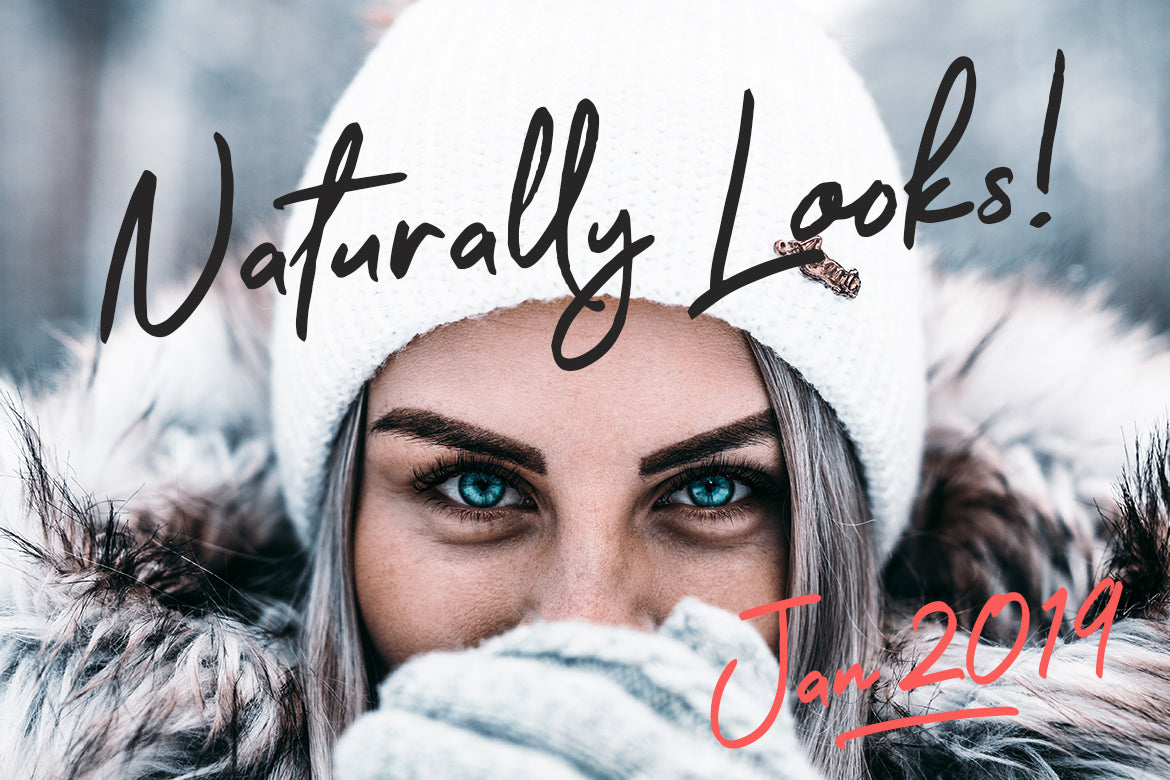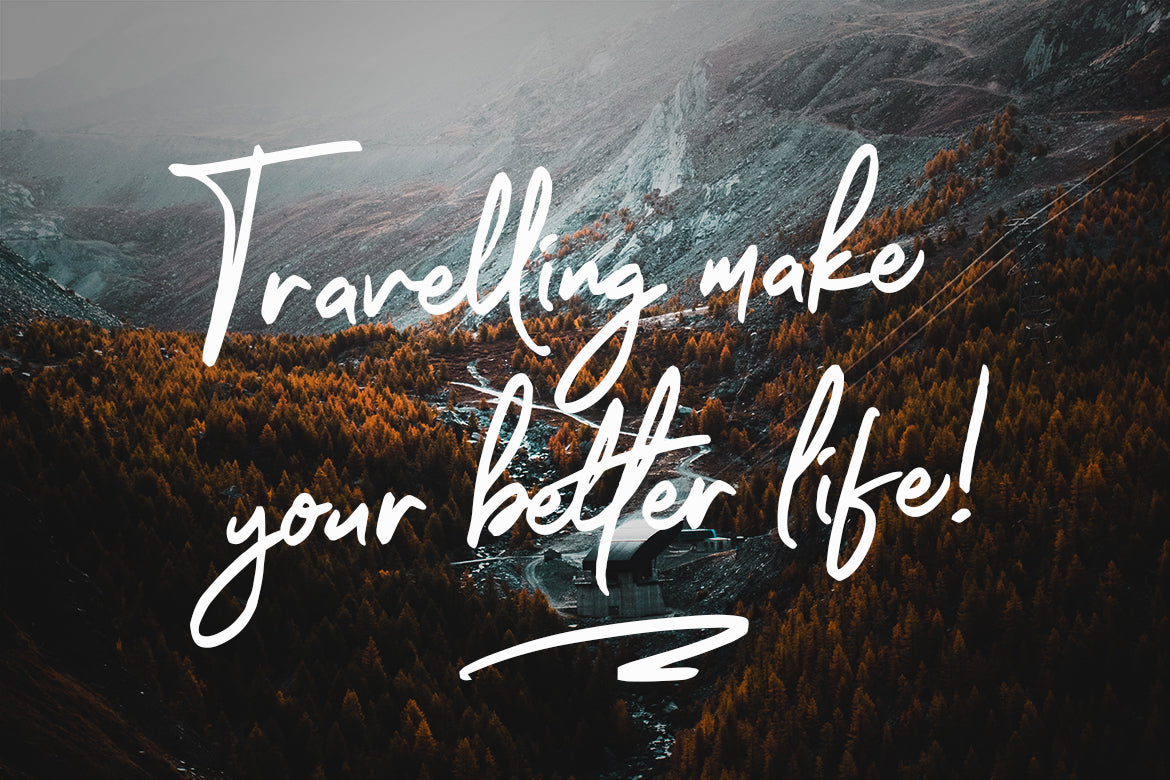
Hello Santtiny - Free Brush Script Font
Featuring a Hello Santtiny - Free Brush Script Font. This is a downloadable free font file brought to you by Creatype Studio. Amaze your fellow designers and create stunning designs with this fancy font.